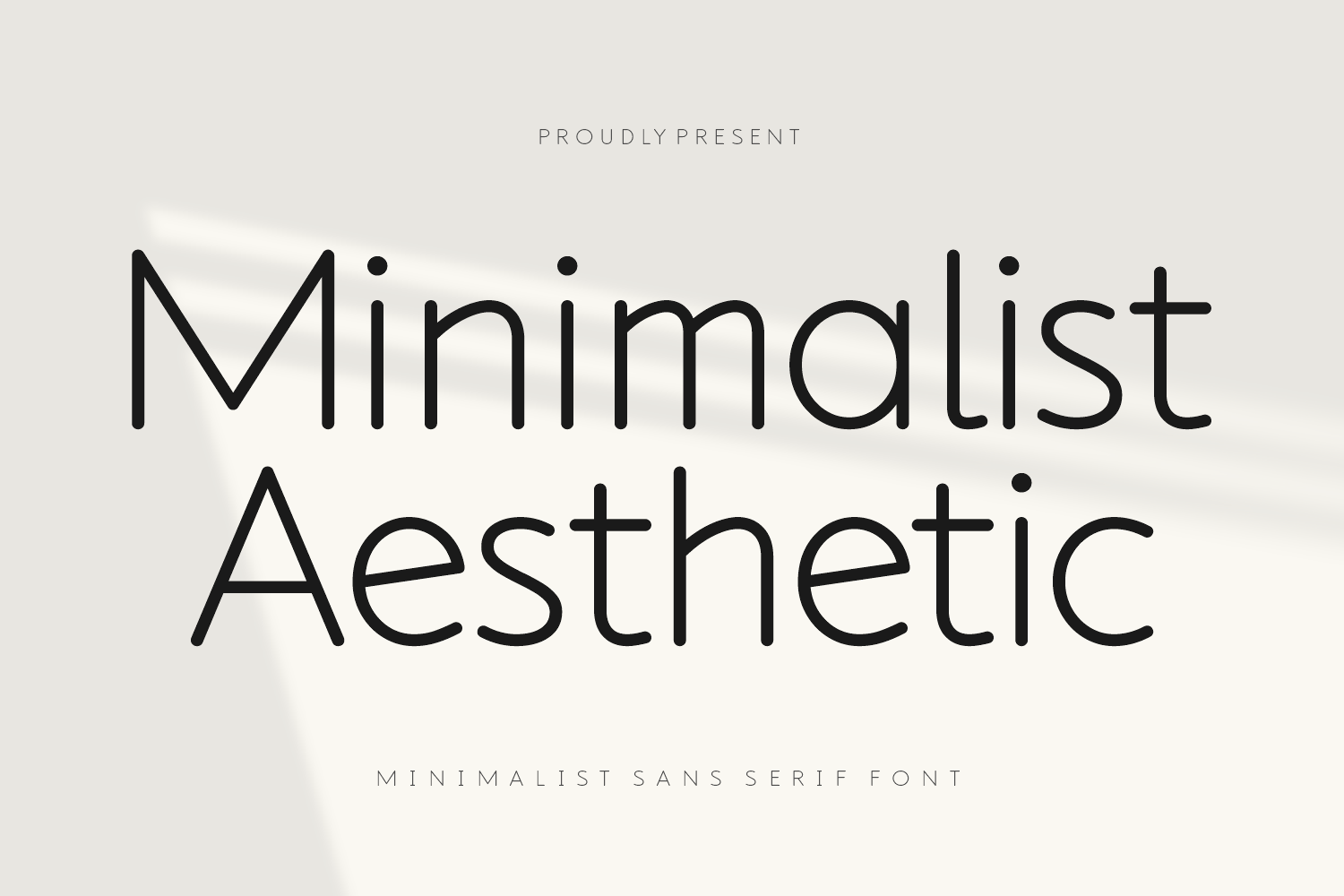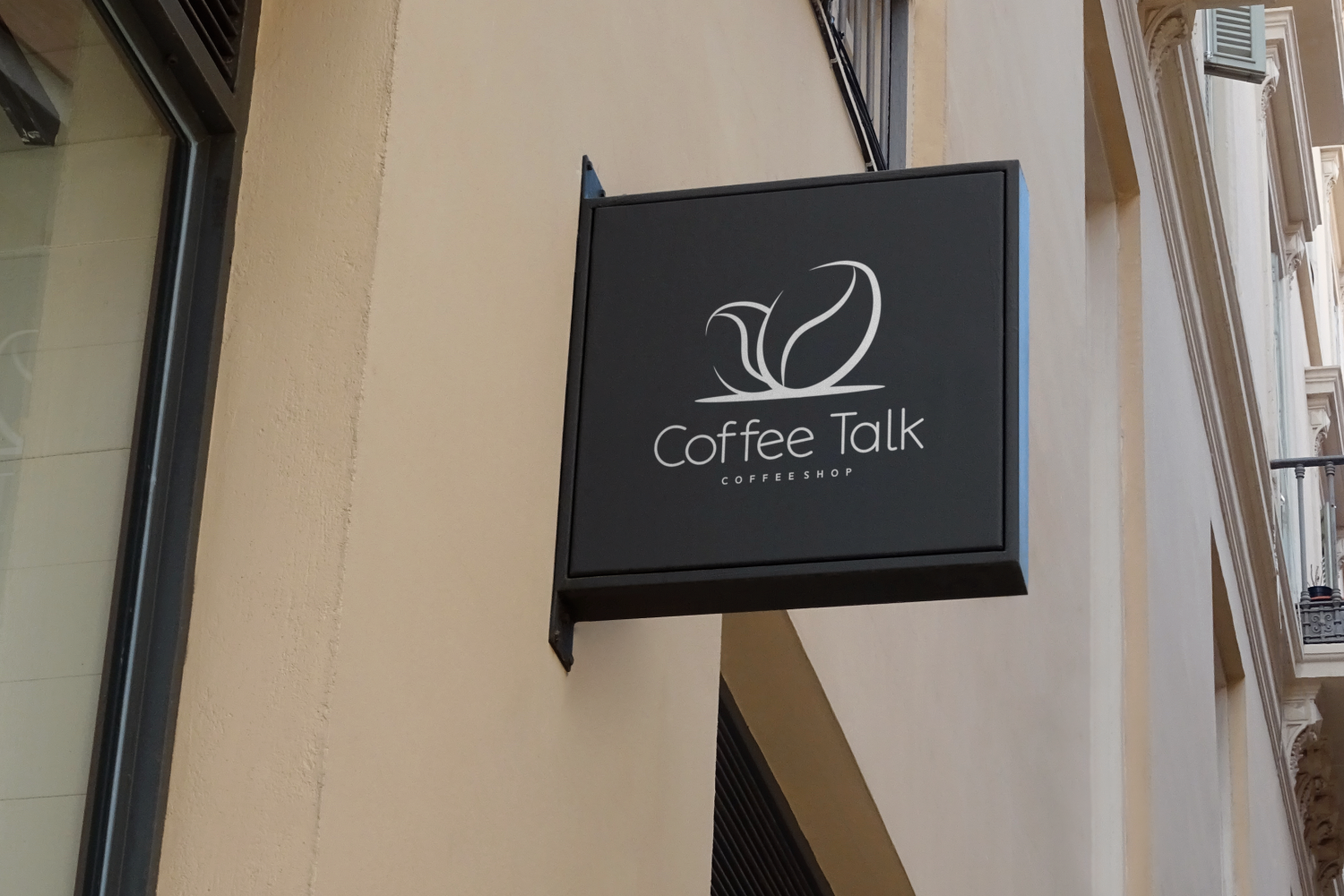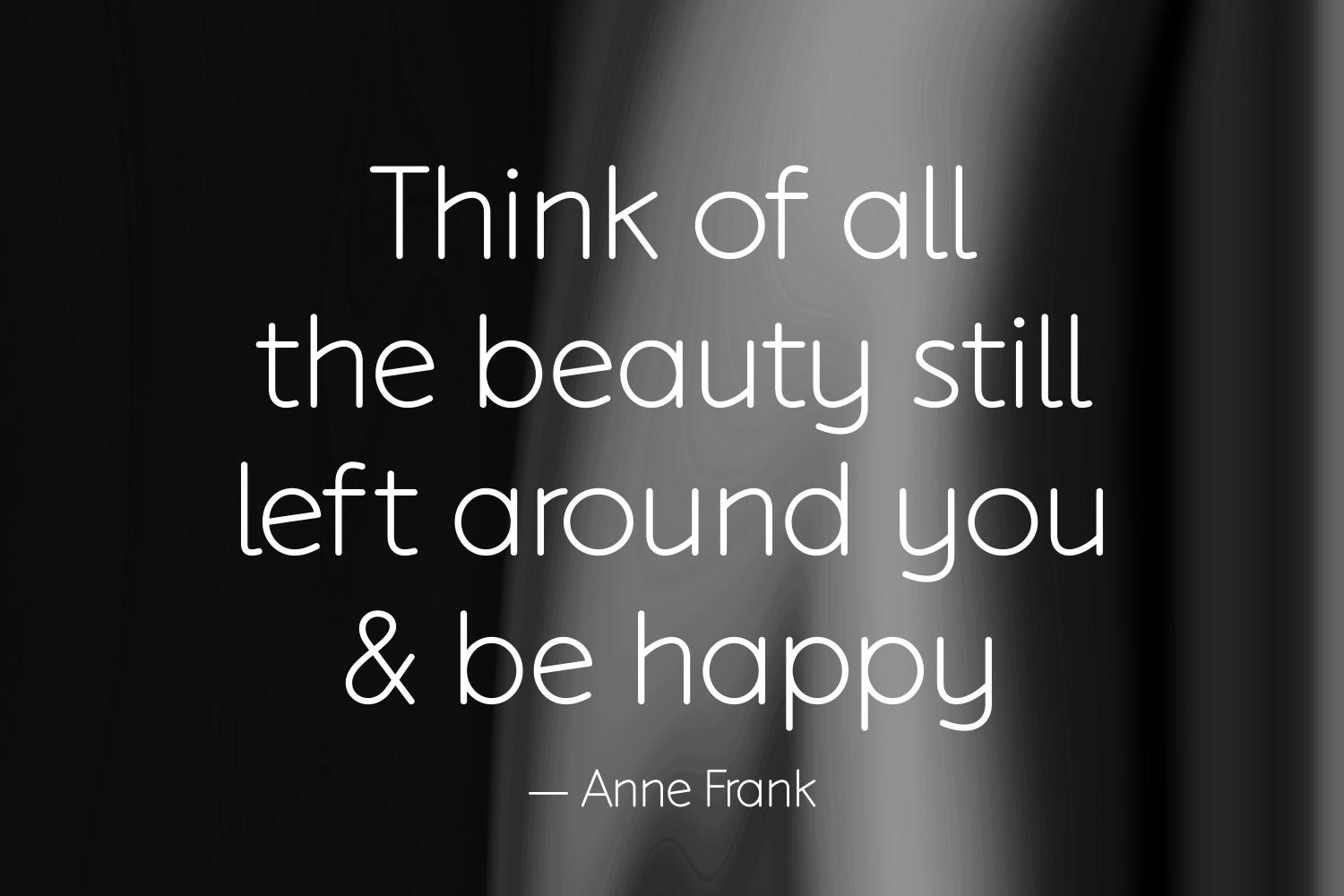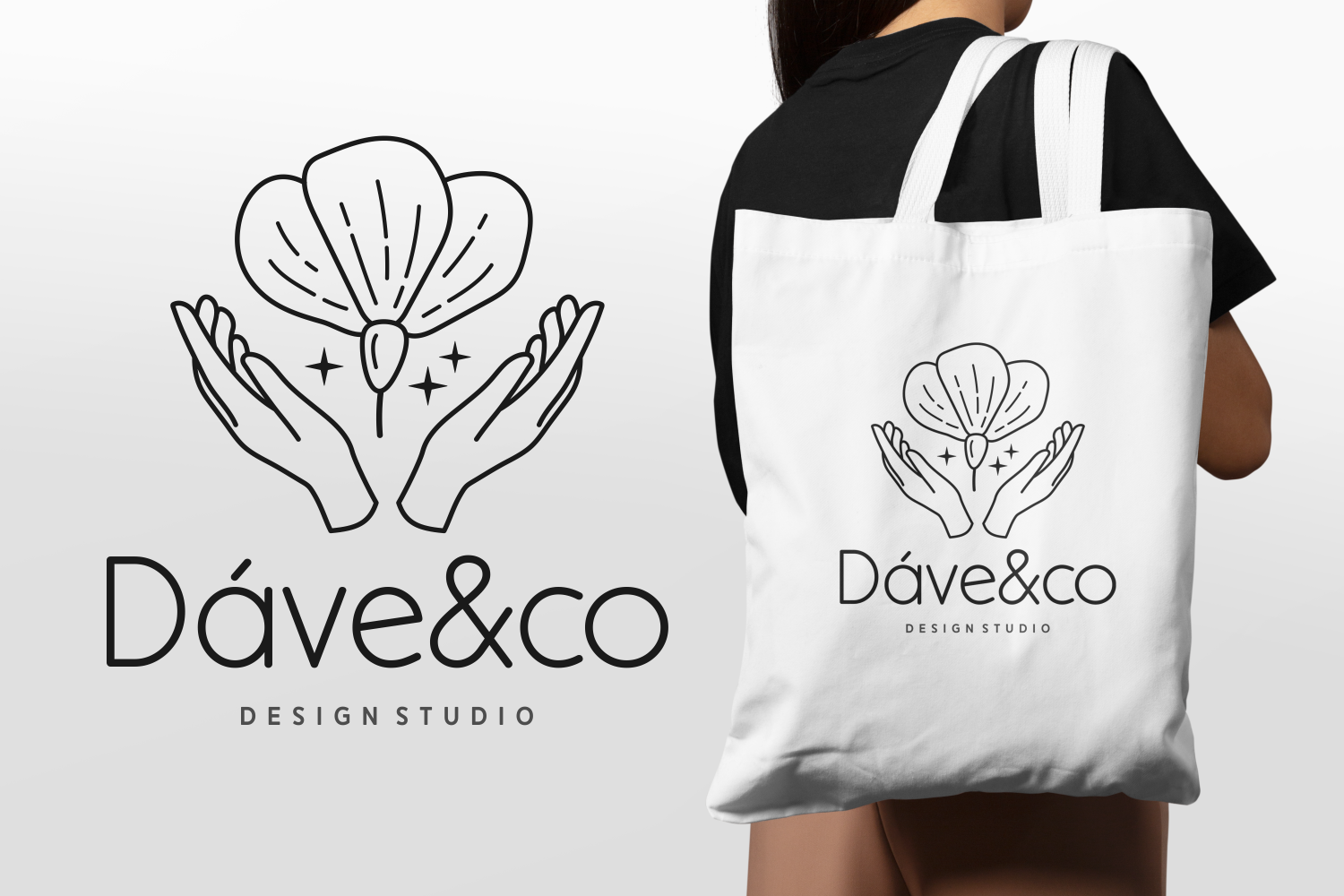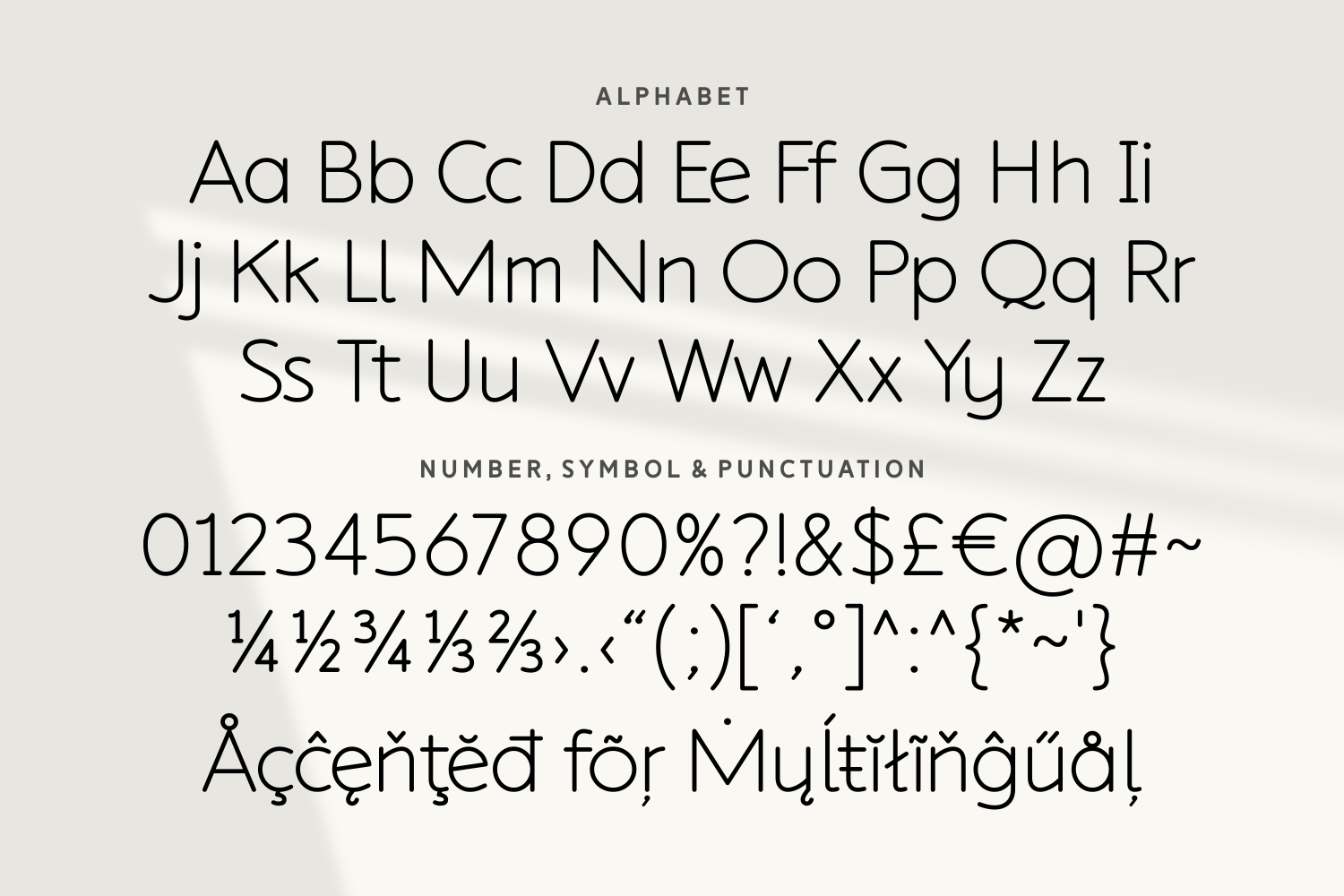
Minimalist Aesthetic
Minimalist Aesthetic is an elegant sans serif typeface that prioritizes clarity and simplicity. Its rounded strokes and open letterforms are ideal for clean branding, lifestyle blogs, and contemporary packaging designs.